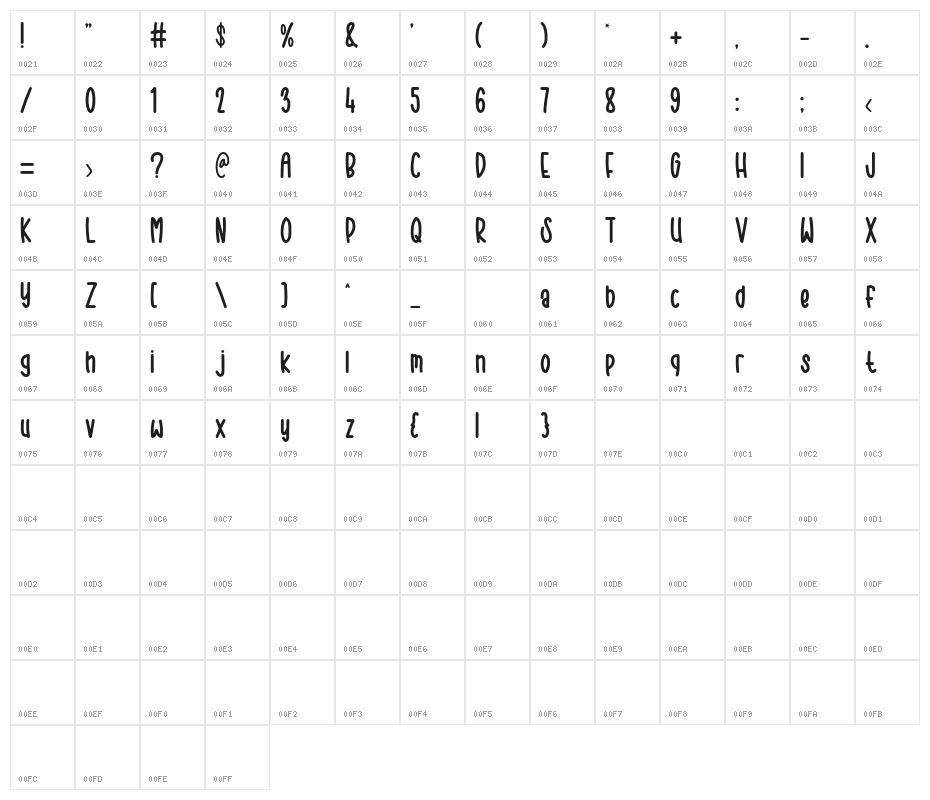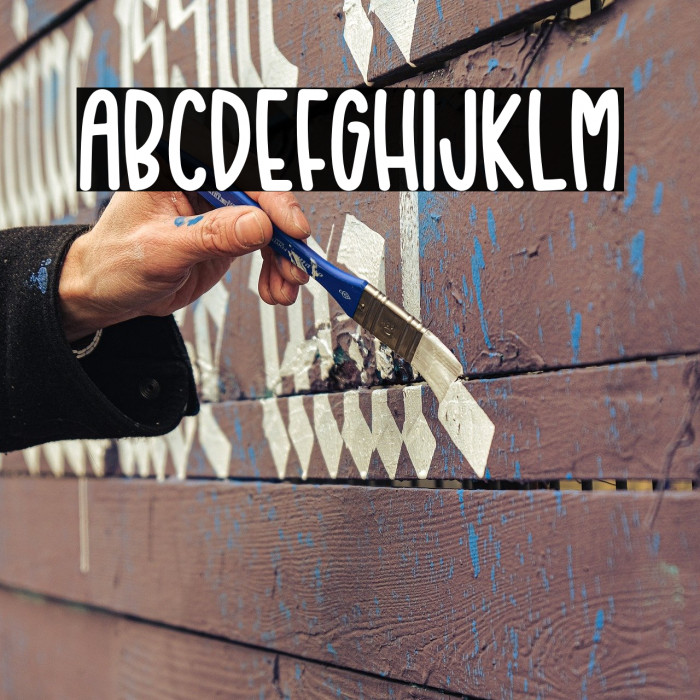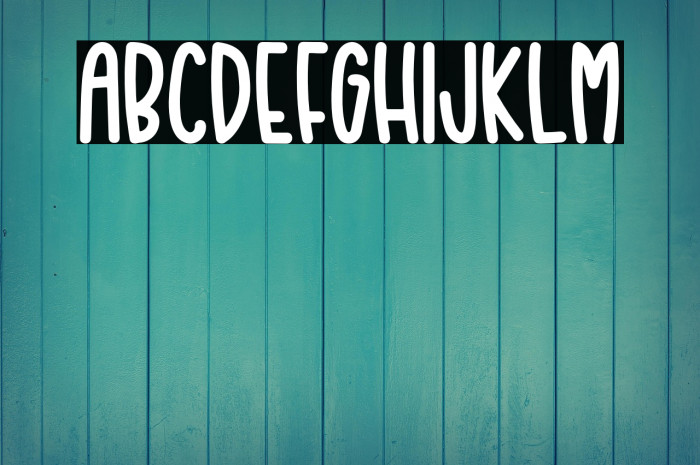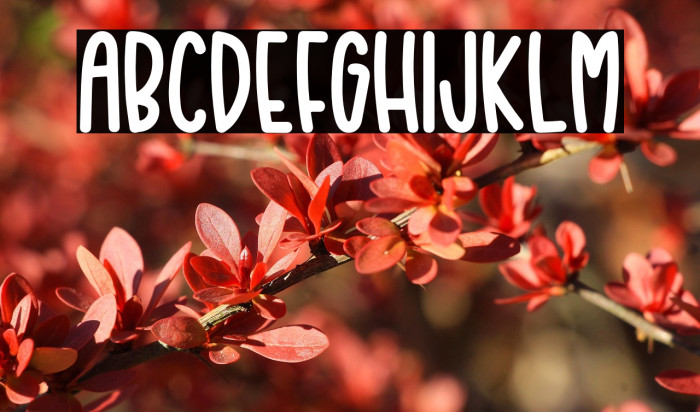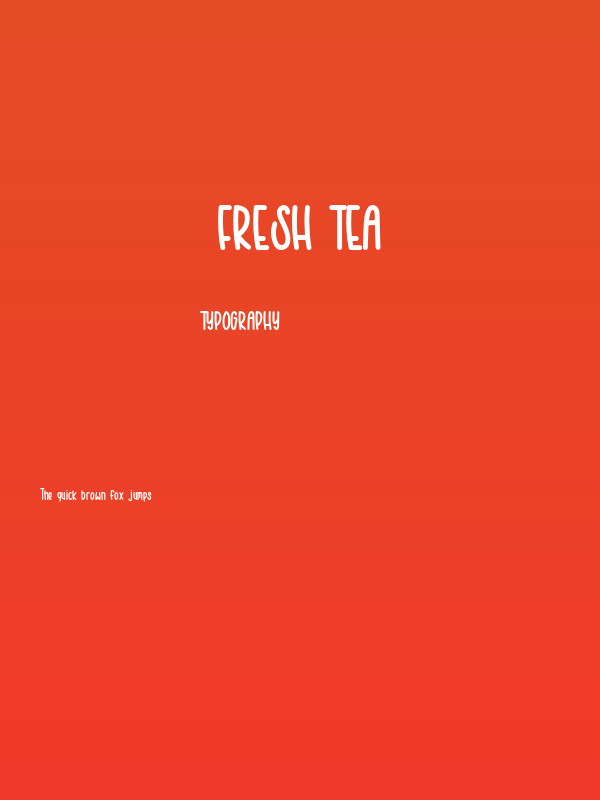
Fresh Tea Font
Fresh Tea Description
This font features a playful and casual handwritten style, characterized by its rounded and slightly irregular letterforms. The strokes are consistent in width, giving it a uniform appearance while maintaining a friendly and approachable vibe. The uppercase and lowercase letters are well-balanced, with a slight tilt that adds to its informal charm. The numbers and special characters are equally whimsical, making it suitable for projects that require a personal touch. Its readability is enhanced by the generous spacing between characters, ensuring clarity even at smaller sizes.
| Overall Style | Casual |
| Use Case | Logos, Headlines, Informal Text |
| Proposed Projects | Ideal for greeting cards, children's books, playful branding, and social media graphics. |